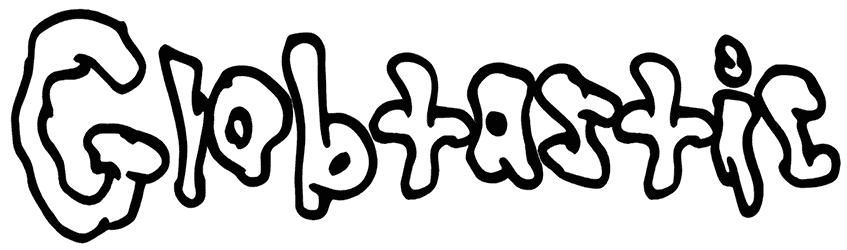
Globtastic Font
Globtastic is a fancy horror font with an unsettling style, making it ideal for Halloween party flyers and posters, scary movie titles, and more. The childish, one-of-a-kind letters in this font will provide an eerie vibe to your design, drawing more attention from your viewers.